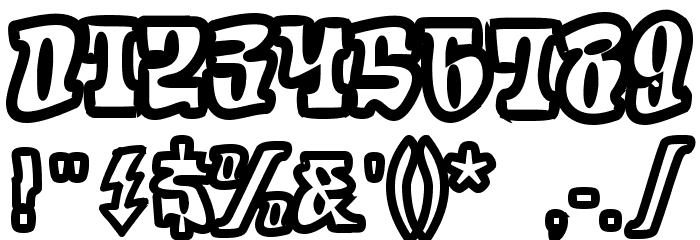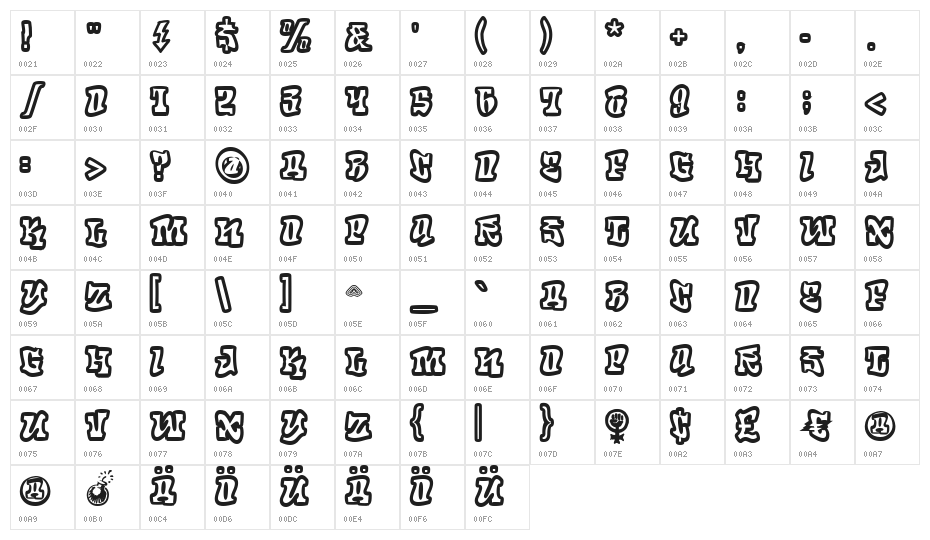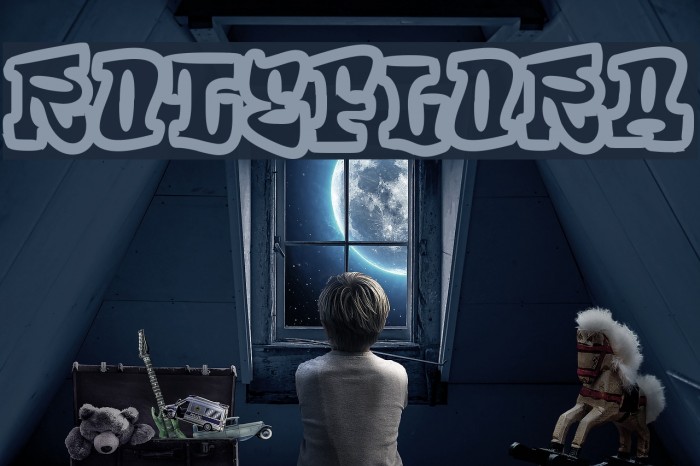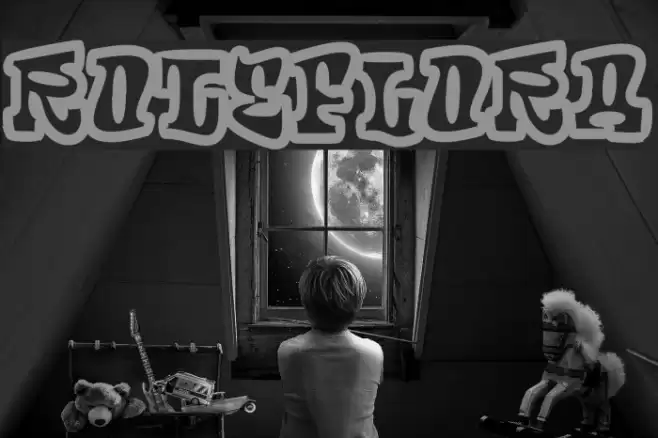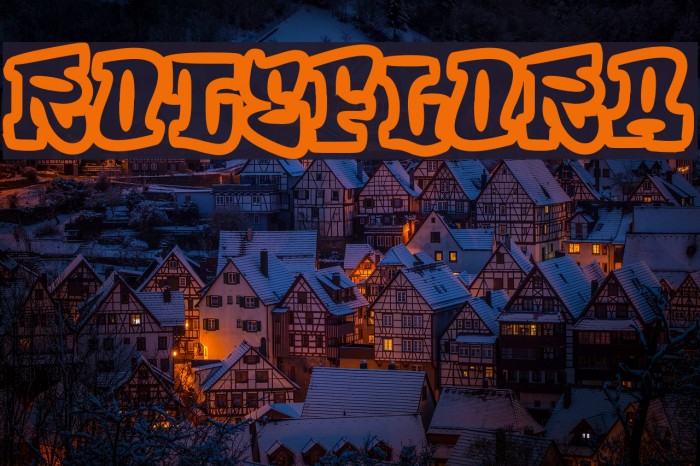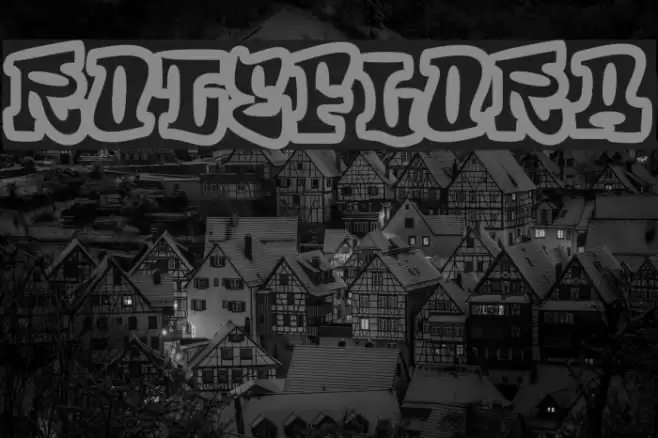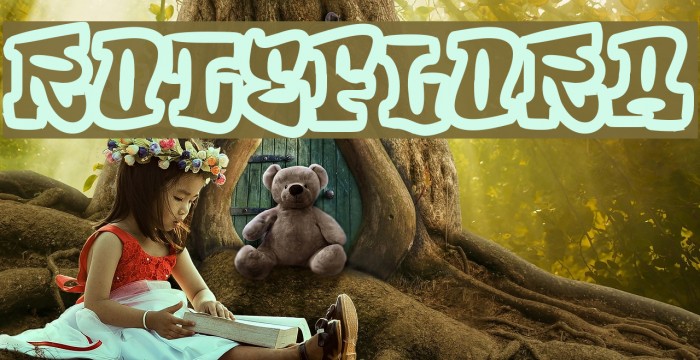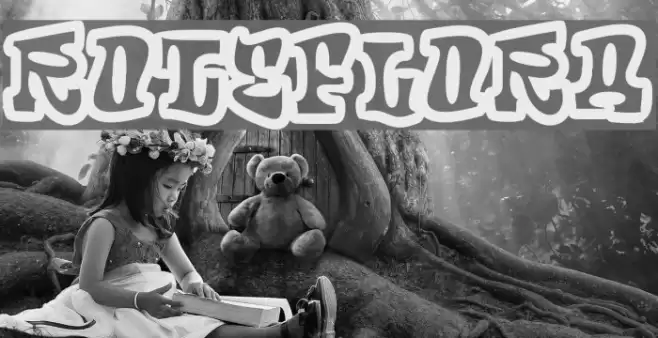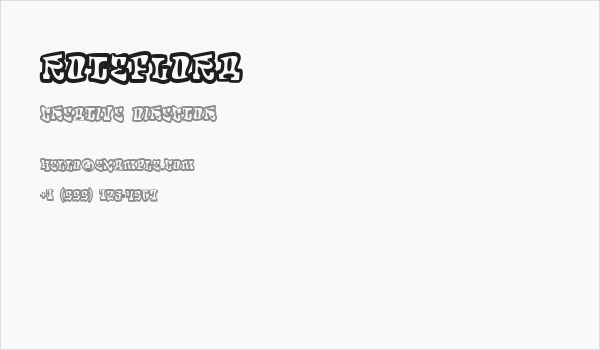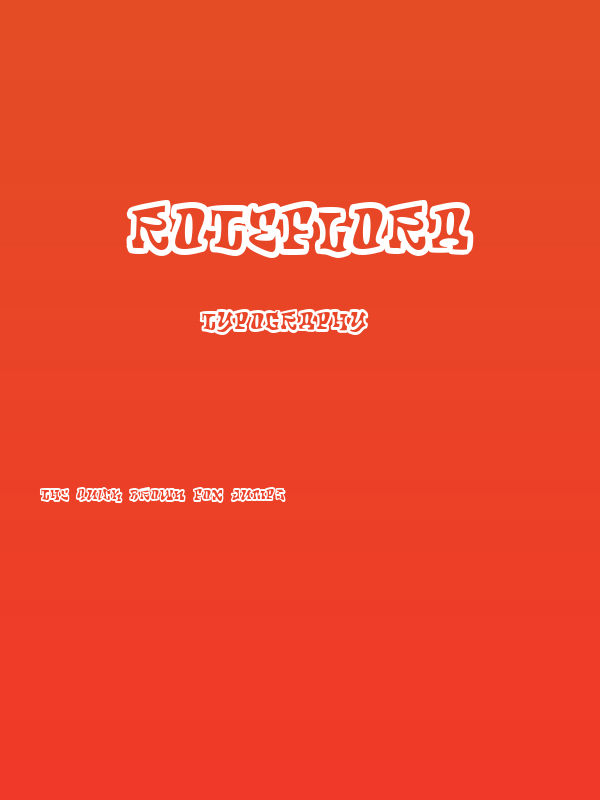
RoteFlora Font
| Style général | Urban, Artistic, Playful |
| Cas d'utilisation | Logos, Posters, Album Covers |
| Projets proposés | Ideal for street art designs, urban-themed posters, music album covers, and creative branding projects. |